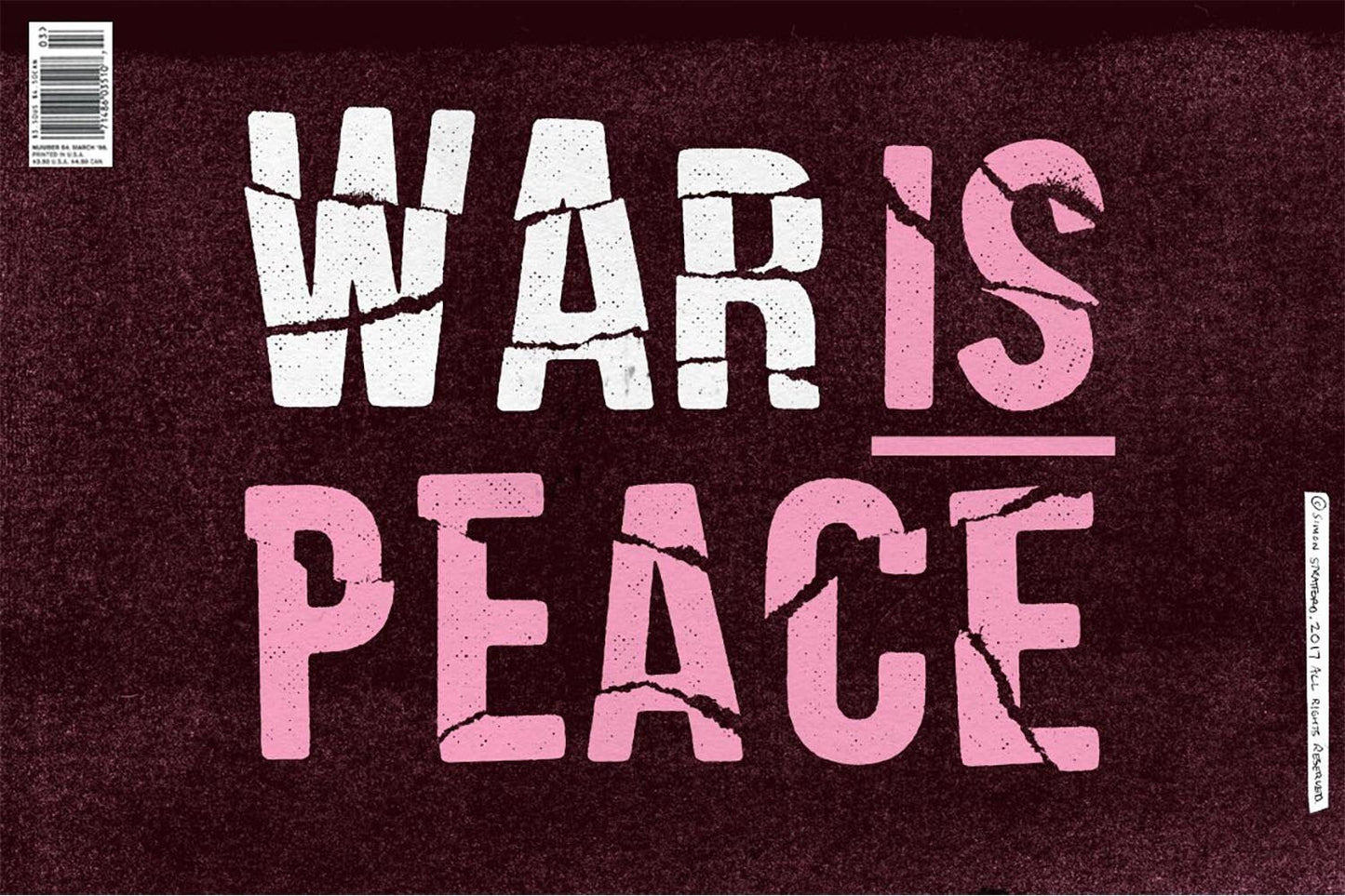
Fake Empire Font is what happens when a perfectly respectable typeface is introduced to paper, glue, scissors and a bad attitude. I made it by printing letters, ripping them apart, sticking them back together and doing it all again. The result is a handmade punk display font that looks damaged because it actually was.
Perfection is overrated
Perfection is boring—perfection rarely starts a fight.
Paul Arden once asked, “Why strive for excellence when mediocrity will do?”
We spend so long polishing away the awkward bits that we often clean away the personality too.
Fake Empire Font keeps the awkward bits. The torn edges, broken print and badly behaved shapes are the whole point.
Three chords. Twenty-six letters.
The idea arrived while I was listening to The National and the line “We’re half-awake in a fake empire” refused to leave. I was also listening to George Orwell’s 1984 on audiobook.
So I went back to basics: paper, glue and scissors. The typographic equivalent of learning three chords and forming a band.
I printed the alphabet, enlarged it until the dot pattern became visible, then tore the letters into narrow strips by hand. Those pieces were glued back together, scanned, printed again and attacked with scissors. Not a plug-in. Not a distress filter. Actual distress.
Damage first. Computer later.
The new letterforms were scanned into Photoshop and converted to high-contrast black and white. I removed the paper background, while keeping the tears, misprints and rough joins that gave the letters their character.
They were traced in Illustrator, turned into a working font and finished in Glyphs, where I adjusted spacing and kerning. Technology did the tidying. The mess was made by hand.
Why Fake Empire Font has three alphabets
A distressed font can quickly stop looking handmade when the same damaged letter appears twice in one word. Real accidents do not repeat themselves that neatly.
That is why Fake Empire includes three versions of every A–Z character. The lowercase keys contain alternative uppercase forms, so you can swap repeated letters and stop a headline looking mechanically distressed.
Same alphabet. Different bruises.
What is Fake Empire Font made for?
This is a detailed display face designed to be seen rather than whispered. It works best when the type is large enough for the torn edges and broken print to do their job.
- Posters and protest graphics
- Album artwork and music campaigns
- Independent magazines and zines
- Editorial covers and title sequences
- Packaging that needs a bit of menace
- Clothing, merchandise and social graphics
Use it for the headline. Let something quieter handle the small print. Even rebellion benefits from hierarchy.
Faulty. Flawed. Finished.
Fake Empire Font is dirty, distorted, misprinted and grungy. Like an old poster that has survived rain, glue, removal, another poster and somebody changing their mind.
It is imperfect by design—not because perfection was impossible, but because perfection would have ruined it.